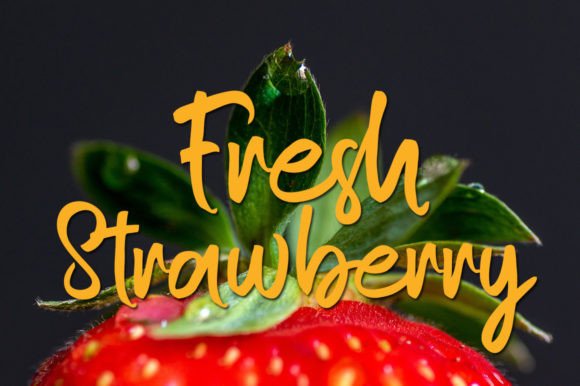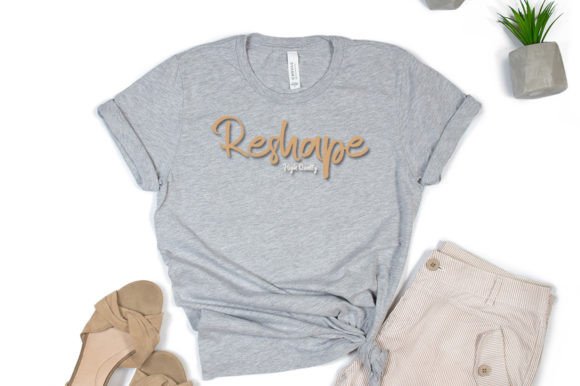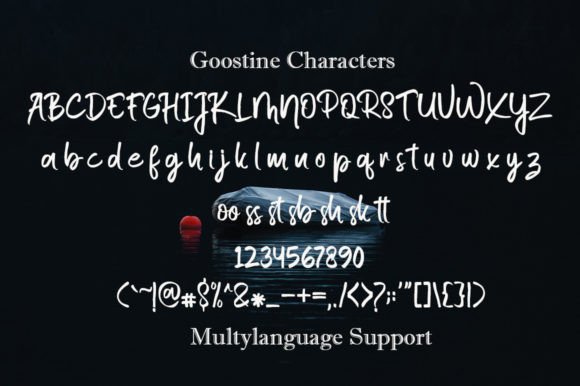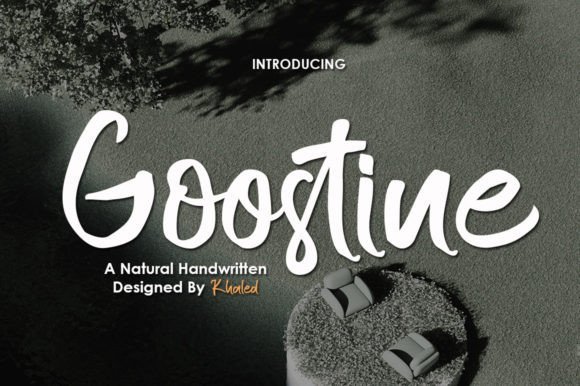
Introduction to Goostine Font
Goostine is a modern handwritten brush font with an organic, dynamic and energetic sytle.
It can be used for various purposes such as titles, signatures, logos, correspondence, wedding invitations, letterheads, signage, labels, newsletters, posters, badges and so much more .